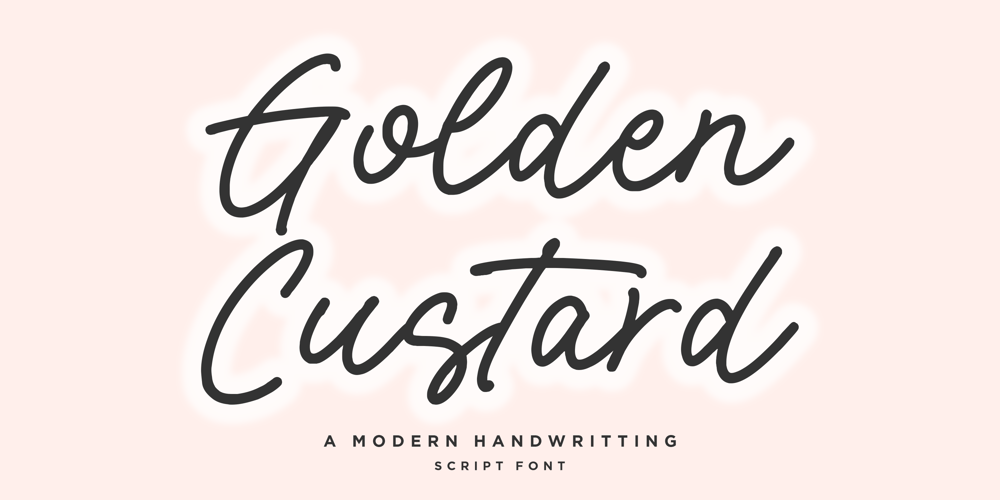
Golden Custard Font Family was designed by Restu Angga and published by Balpirick. Golden Custard contains 1 styles and family package options. Golden Custard is a Modern Handwritting Font that’s perfect for adding a touch to your design projects!Crafted with care and attention to detail, this font is incredibly versatile and can be used for a range of design projects, including logos, branding, invitations, and more. Its modern, handwritten style gives it a unique character that’s sure to make an impact.Also multilingual supportThank you!